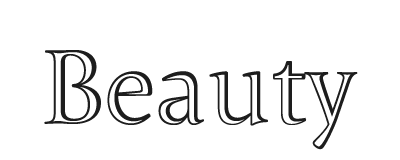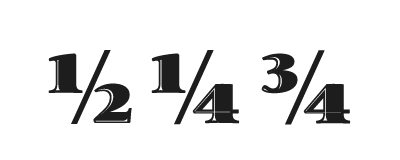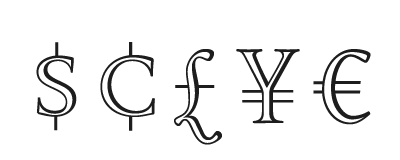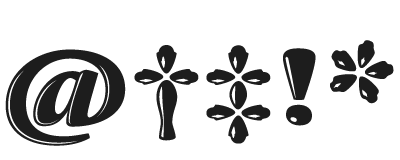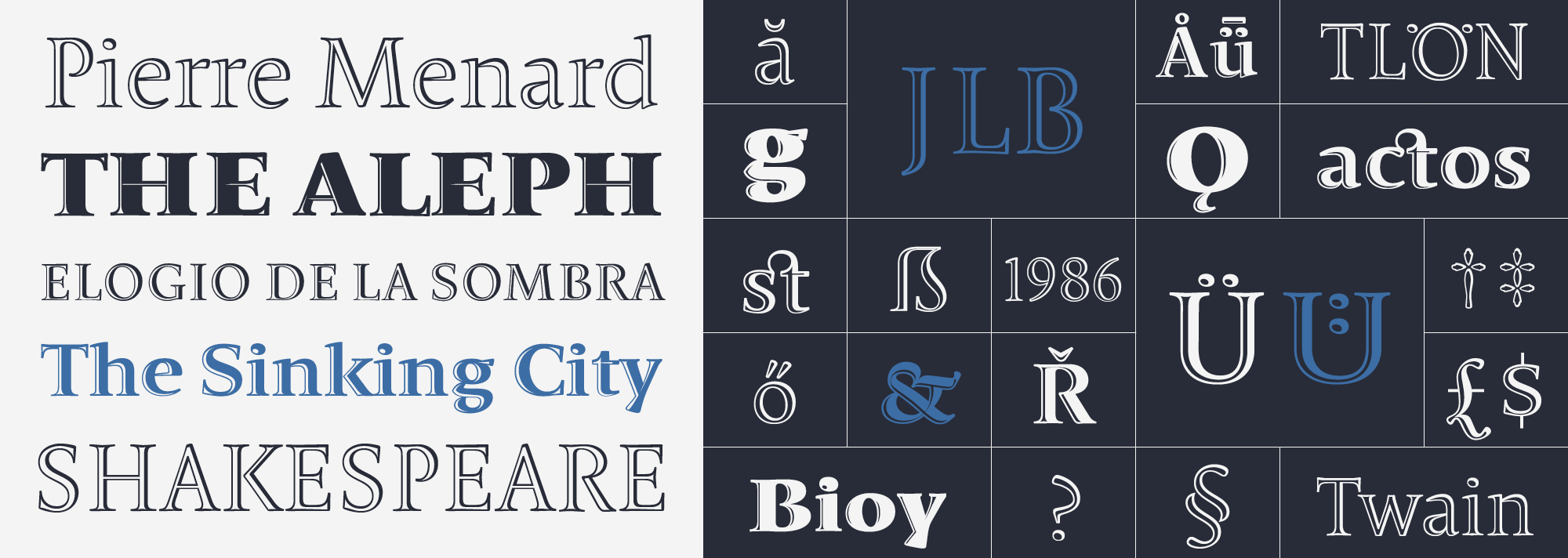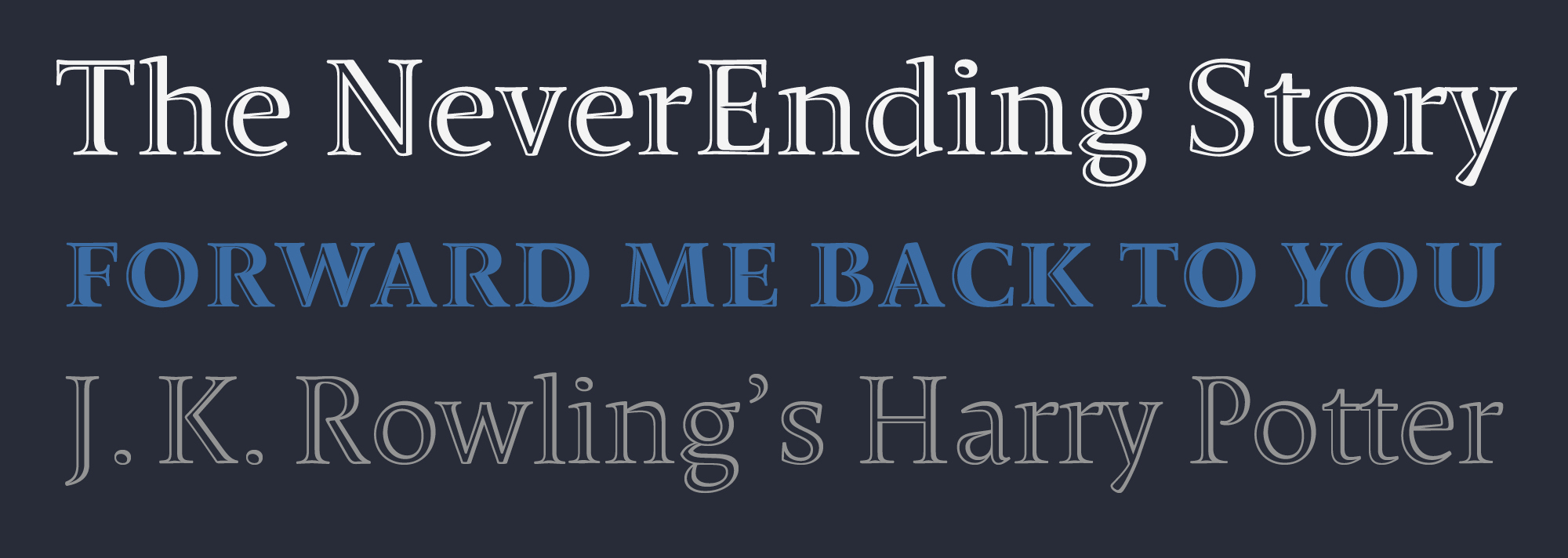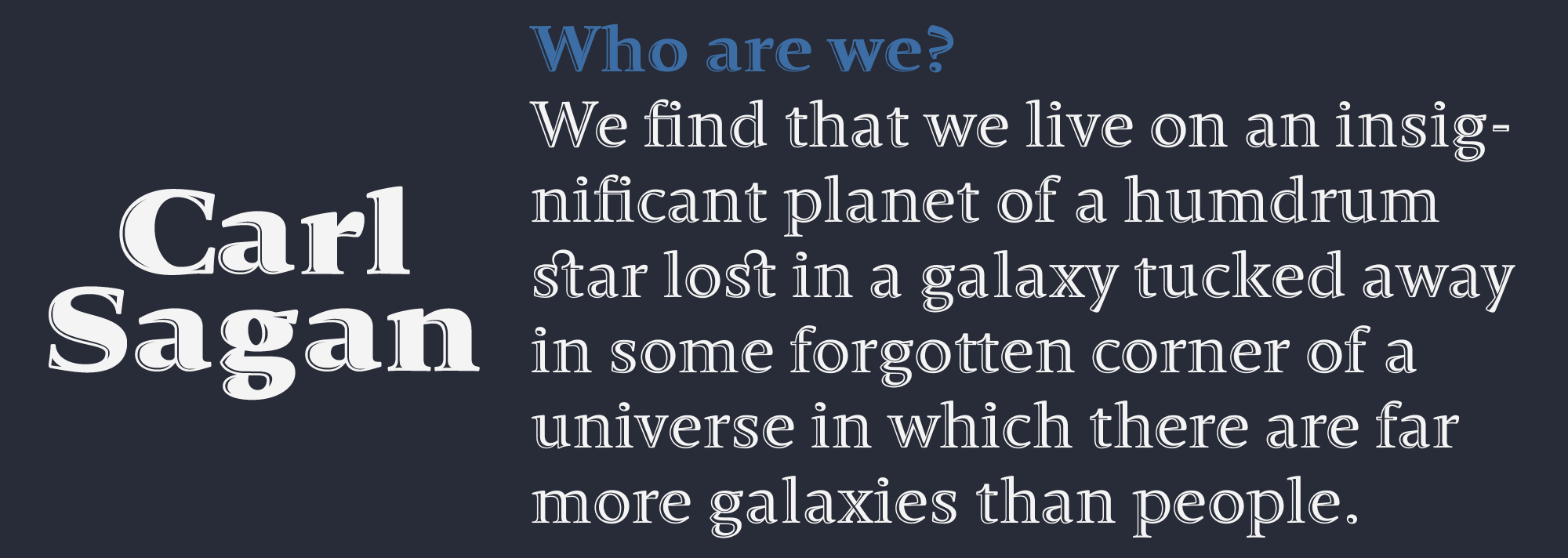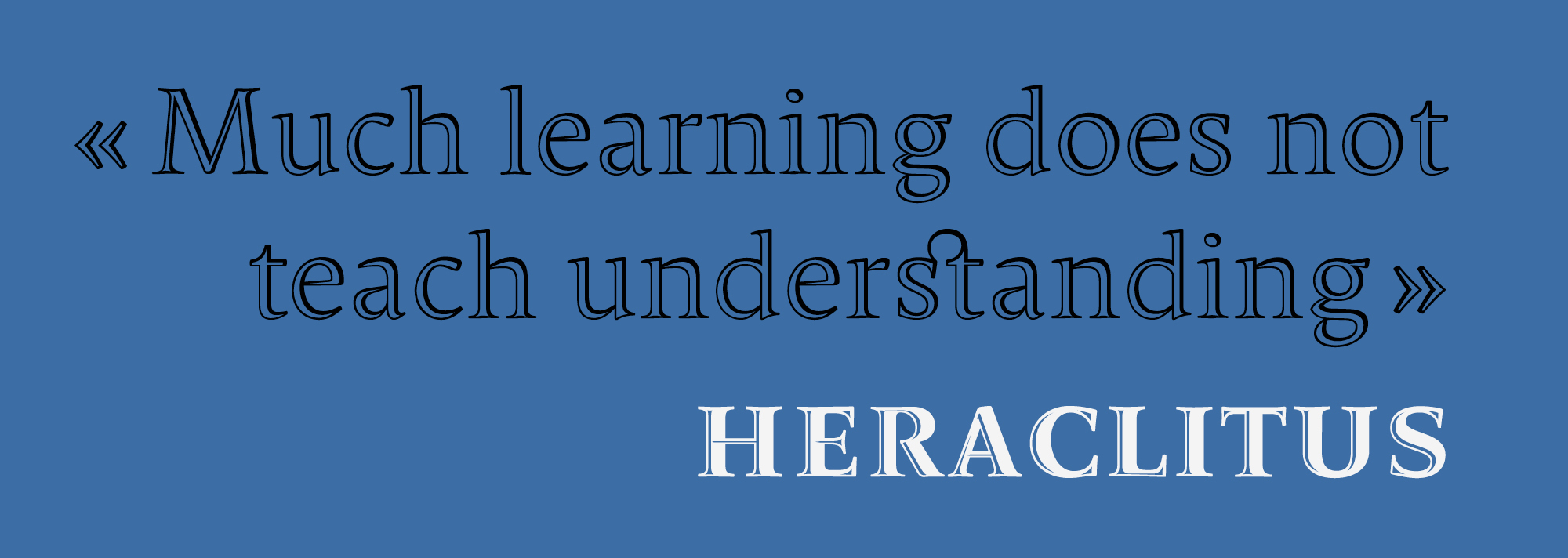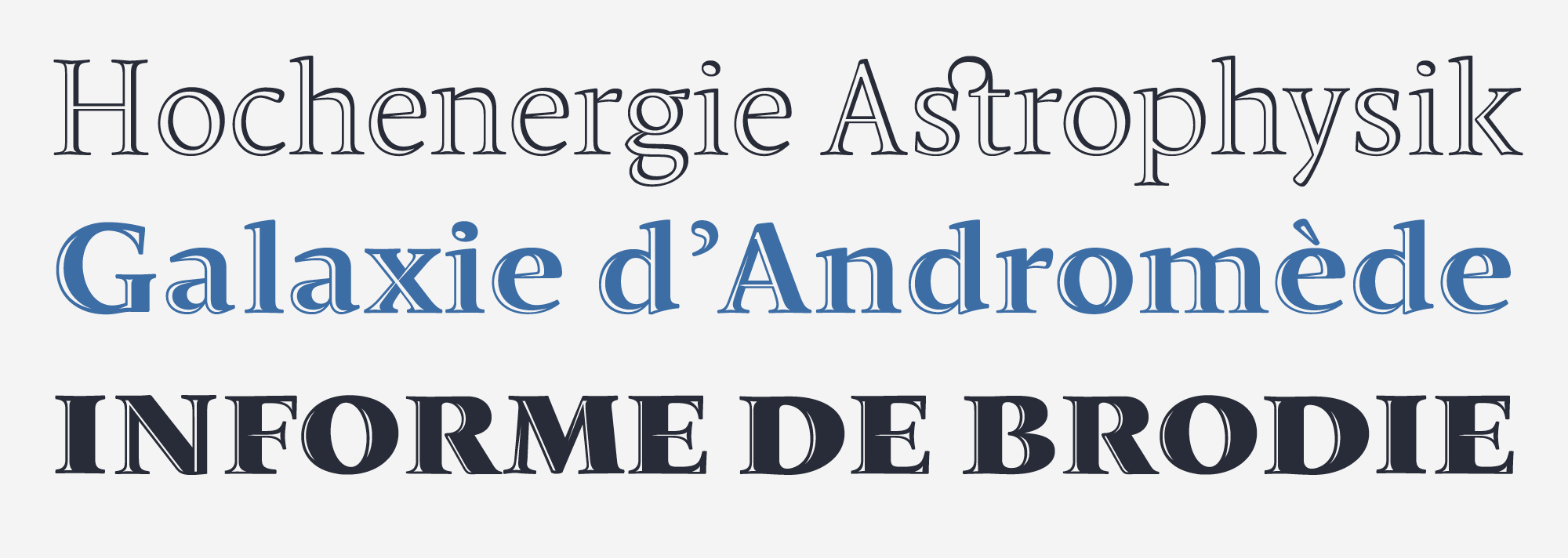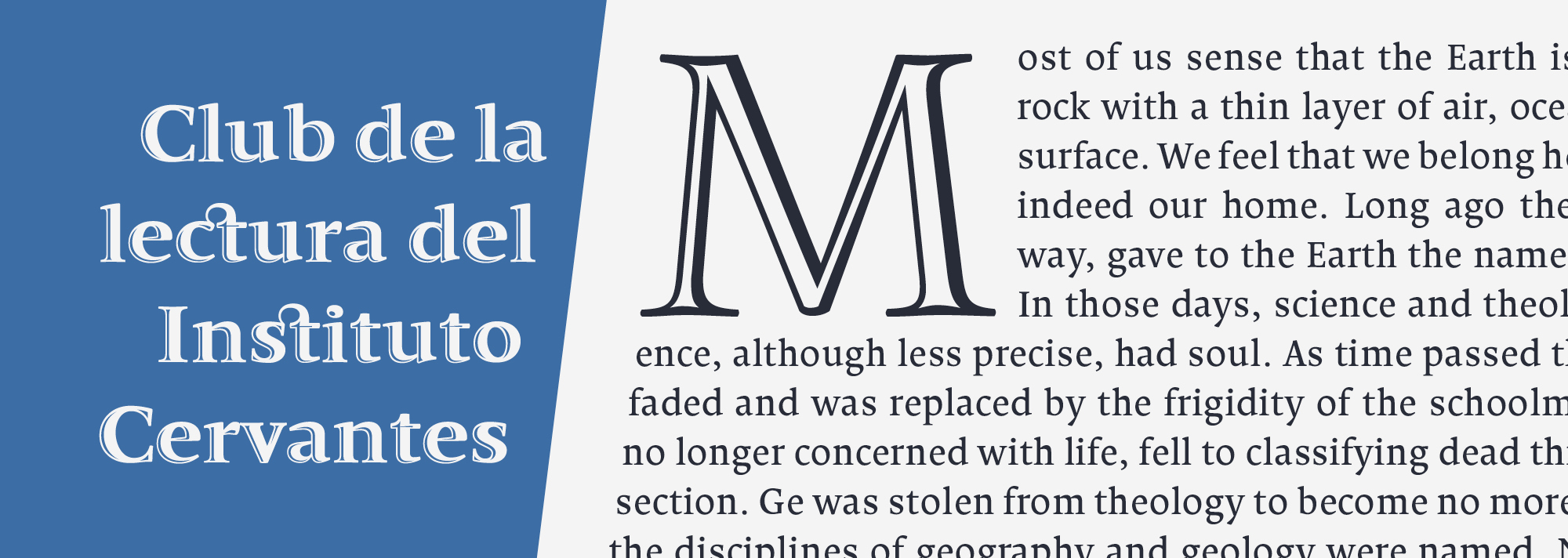
The engraved display version of Borges
Borges Open is an engraved, extra elegant and impactful display font set, part of the Borges type family. The four Borges Open styles have been carefully designed to offer specific impressions in titling, headings, logos and other settings where you need flair. The Light version is the original style: classy, balanced, serene. It was prized by Matthew Carter at the Morisawa Awards in Japan. The other three styles were added later. The Regular weight was designed to offer an epigraphic feel, as if it had been carved in stone, balancing light and shadows in equal proportions. The Bold has a larger shade, giving it more power without being too black or too wide. And the Black style is the strongest choice when you need impact and refinement combined. The Borges type family pays homage to the fantastic work of writer Jorge Luis Borges. His writing technique, that of a meticulous and tireless goldsmith, in relentless pursuit of the perfect word, suggested a clean, economical though elegant letterform.
Borges Open
Designed by Alejandro Lo Celso.
Styles
Borges Open Light
Borges Open Regular
Borges Open Bold
Borges Open Black
Features & Specials
headings perfect fit
elegance guaranteed
Latin Extended
standard ligatures
discretionary ligatures
german eszett
language local forms
Alt German umlaut
lining figures
standard fractions
basic monetaries
standard punctuation
case sensitive forms